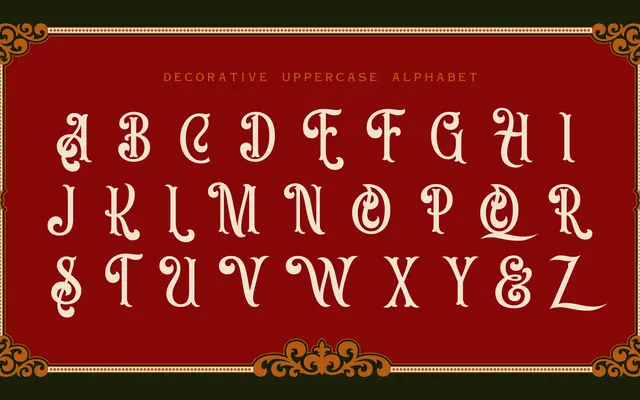
Botanist
A Victorian-inspired display serif with sharp serifs, flowing curves and a set of decorative capital alternates designed for ornamental use.
Designed by Jason Carne, Botanist draws on Victorian typographic tradition with crisp, razor-edged serifs and delicate curved strokes. The standard uppercase is restrained enough for formal settings, while the accompanying decorative capitals add flourish suited to packaging, branding or editorial display work. The family covers 380+ glyphs with support for over 75 Latin-based languages.
Botanist is a Victorian-inspired display serif with sharp serifs, flowing curves and decorative capital alternates, placing it firmly in the ornate display category rather than text use.